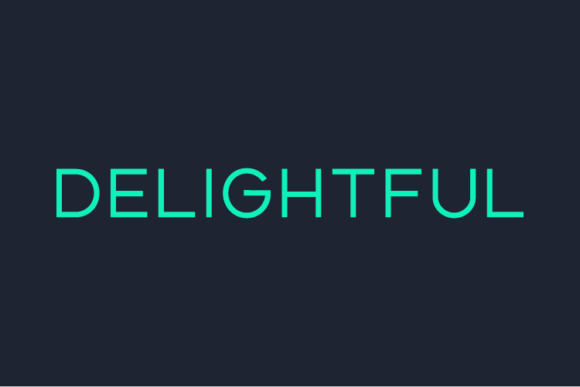
Where Creativity Meets Perfection: Discover the Delightful Font
There’s something magical about the moment when a design comes together – the perfect balance of colors, the precise alignment of elements, and the subtle yet powerful font choice that elevates the entire composition. As designers, we know that this ‘aha’ moment is what makes all the hard work worth it.
Enter Delightful Font, a stunning sans serif font designed to complement every project you’re working on. With its beautiful uppercase alphabet, numbers, and symbols, Delightful Font is the perfect addition to your design toolkit. Whether you’re creating gorgeous invitations, stunning logos, or beautiful headings, this font is sure to bring your vision to life.
Delightful Font Key Features
- Unique Characteristics: The font features a unique blend of rounded and geometric shapes, creating a friendly and approachable aesthetic that is perfect for branding, packaging, and editorial design.
Delightful Font Review
Overall, I’d say Delightful Font is a solid choice for those looking for a friendly, approachable typeface. ✨ It’s great for body text, headings, and even titles – it’s really versatile. The font’s rounded edges and soft curves make it perfect for design projects that require a touch of warmth and personality. ✨ The font’s legibility is also top-notch, making it easy to read even at smaller sizes.
One of the things I appreciate about Delightful Font is its wide range of styles and weights. ✨ From light to bold, and even a fun, playful italic, you’ll find the perfect fit for your design needs. The font also supports multiple languages, which is a big plus for projects that require multilingual support.
- ⚠️ Limited support for some advanced typography features, such as ligatures and swashes.
- ⚠️ Not ideal for formal or corporate designs, as it may come across as too playful or casual.
Overall, I’d give Delightful Font 4 out of 5 stars. While it may not be the most sophisticated or formal font, it’s perfect for design projects that require a friendly, approachable tone. With its wide range of styles and weights, it’s a great choice for designers who want to add a touch of personality to their work.
For optimal results, use Delightful Font for creative projects, such as infographics, social media graphics, and wedding invitations. Experiment with different font sizes and styles to add visual interest to your designs.
Alternatives to Delightful Font for Designers
Q: What is the recommended font size for Delightful Font?
The recommended font size for Delightful Font varies depending on the design context. As a general guideline, use font sizes between 12px and 24px for body text, and 36px or larger for headings. This will ensure optimal readability and visual appeal.